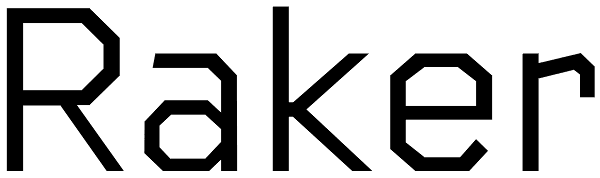
Raker
Raker is a science fiction-inspired geometric sans serif text typeface family with a humanist influence and solid spacing/kerning. Regular, Display, stencil, and display stencils versions are included. Think NASA. Think the Space Race. Think...